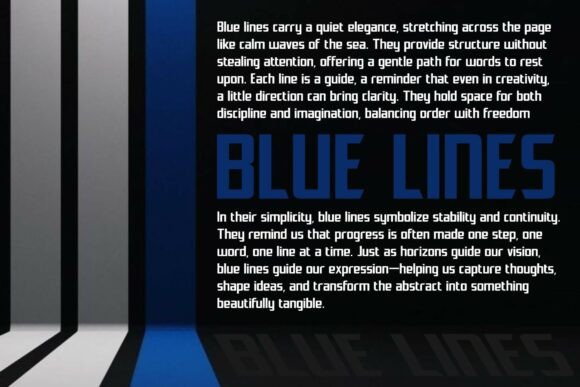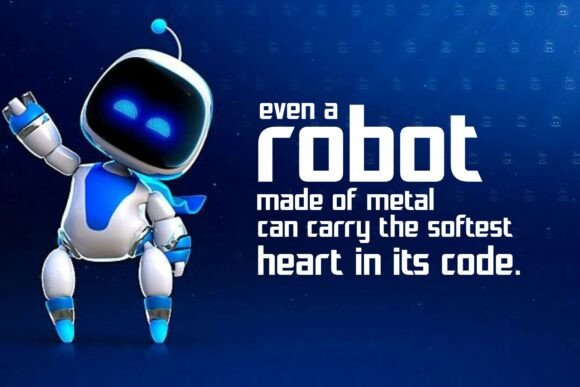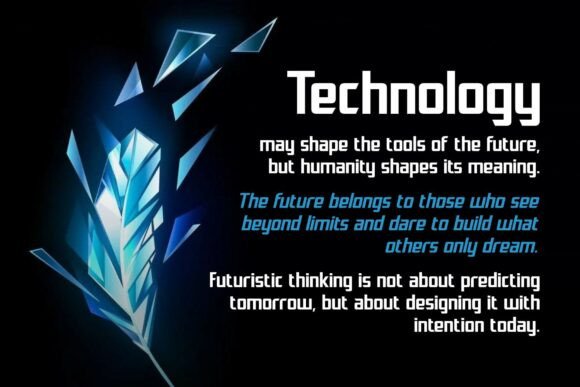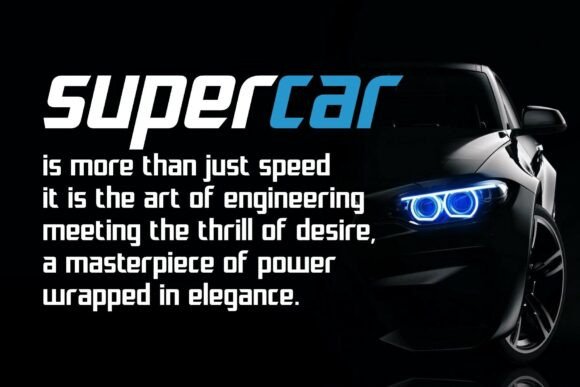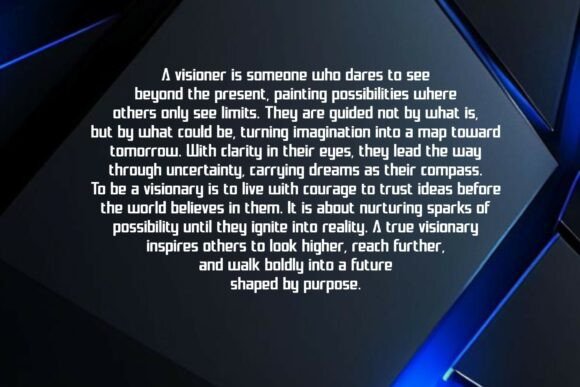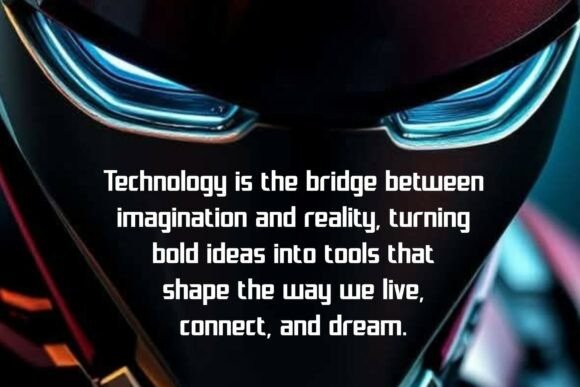
Introducing Decepticon Font: The Ultimate Modern Display Font for Bold Designs
In the world of typography, fonts play a crucial role in conveying the tone and personality of a brand or design. For those looking to make a bold statement, the Decepticon Font is an exceptional choice. This modern display font is engineered to deliver a powerful, aggressive, and futuristic aesthetic, making it perfect for designs that demand attention and exude confidence.
Design Characteristics of Decepticon Font
The Decepticon Font is distinguished by its sharp angles, strong geometric shapes, and solid letterforms. These design elements work in harmony to create a font that embodies power, strength, and a high-tech atmosphere. The bold and aggressive style of Decepticon is not just visually striking but also evokes a sense of modernity and technological advancement.
Versatility and Application
One of the standout features of the Decepticon Font is its versatility. It is designed to be highly impactful in various visual compositions, making it suitable for a wide range of applications. Whether you’re working on sci-fi themes, gaming designs, movie titles, technology branding, posters, logos, esports, or futuristic promotional materials, Decepticon is an excellent choice.
Sci-Fi Themes and Gaming Designs
For sci-fi and gaming designs, the Decepticon Font offers the perfect blend of futurism and aggression. Its sharp angles and strong geometric shapes instantly convey a sense of otherworldliness and advanced technology, drawing the audience into the world you’re creating.
Movie Titles and Technology Branding
In the realm of movie titles and technology branding, first impressions are crucial. The Decepticon Font, with its dramatic and commanding presence, ensures that your title or brand name stands out. It communicates a sense of innovation and forward-thinking, essential qualities for tech brands and filmmakers looking to leave a lasting impact.
Posters, Logos, and Esports
For posters, logos, and esports designs, the Decepticon Font’s intense and mechanical character helps create a strong visual identity. It feels bold, modern, and authoritative, making it perfect for designs that need to resonate with a younger, tech-savvy audience. The font’s unique aesthetic can elevate your design, making it more memorable and engaging.
The Decepticon Font is a powerful tool for designers and crafters looking to infuse their projects with a bold, aggressive, and futuristic style. Its sharp angles, strong geometric shapes, and solid letterforms make it an ideal choice for a wide range of applications, from sci-fi themes and gaming designs to technology branding and esports. With its availability in multiple formats, Decepticon ensures that your designs are not only visually striking but also versatile and compatible across different platforms.
Whether you’re aiming to create a dramatic and commanding presence or a strong and authoritative visual identity, the Decepticon Font is an exceptional choice. Elevate your designs with a font that embodies power, strength, and a high-tech atmosphere, and discover the impact it can have on your visual compositions.